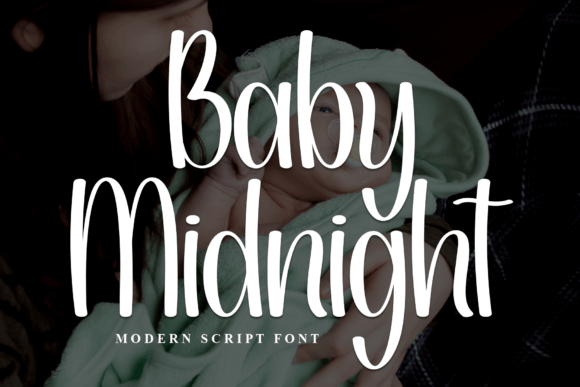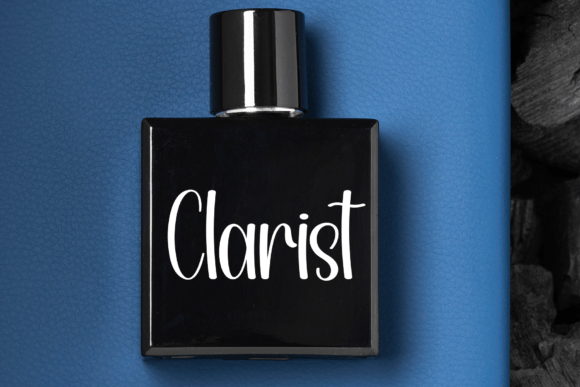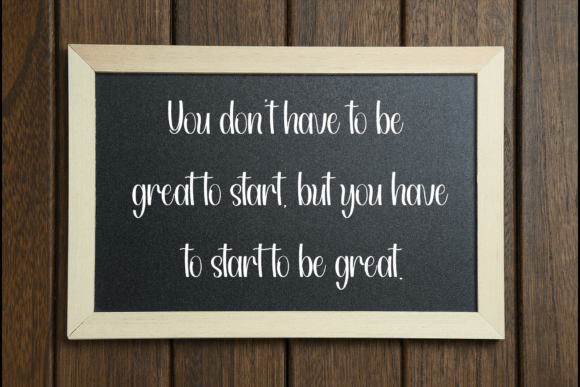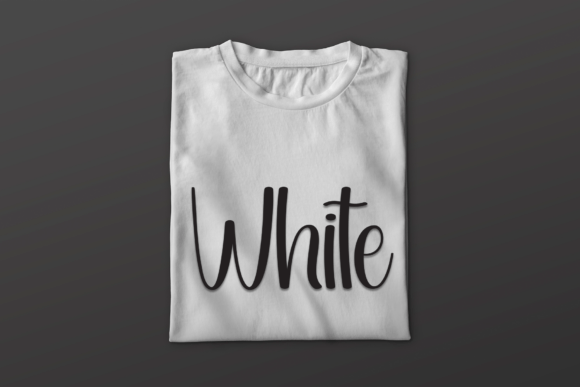
Baby Midnight Font
About the Baby Midnight Font
The Baby Midnight Font offers a perfect balance of form and function for your design needs. This display handwritten font bursts with personality and charm, capturing the warmth of real handwriting with bold, eye-catching strokes. Designed to stand out while maintaining a natural flow, it’s perfect for logos, social media graphics, posters, and anything that calls for a personal, expressive touch. Whether you’re crafting a heartfelt quote or branding a creative product, this font brings authenticity and flair to your design.
Baby Midnight excels in headlines, short text blocks, and social media posts where its expressive strokes create visual impact. Its charm works well for branding projects targeting a younger demographic or those emphasizing handmade aesthetics. However, its handwritten nature makes it less suitable for body copy or UI elements requiring high readability.
Pair Baby Midnight with a clean sans-serif like Open Sans for a balanced contrast, or a geometric sans-serif like Montserrat for a modern feel. For a more playful look, consider pairing it with a rounded sans-serif. Avoid using it with overly ornate or highly stylized fonts that might compete with its bold character.
The font’s core personality is playful yet sophisticated; bold and expressive without being overly aggressive. It suits brands and projects that value authenticity, creativity, and a touch of hand-crafted charm.
Baby Midnight Font Usage Examples
Baby Midnight Font Example